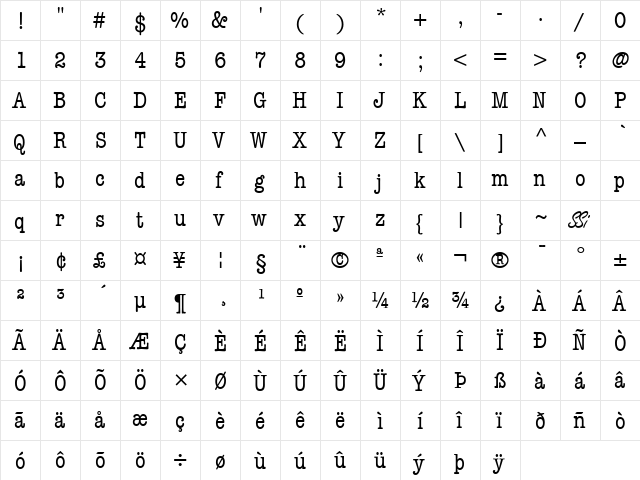
Keyboard Condensed SSi Condensed
Design Context for Keyboard Condensed SSi Typeface
Keyboard Condensed SSi takes a measured approach to typography — its balanced proportions and neutral character make it a reliable workhorse for both digital and print work. The condensed width makes it efficient for tight spaces without sacrificing legibility.